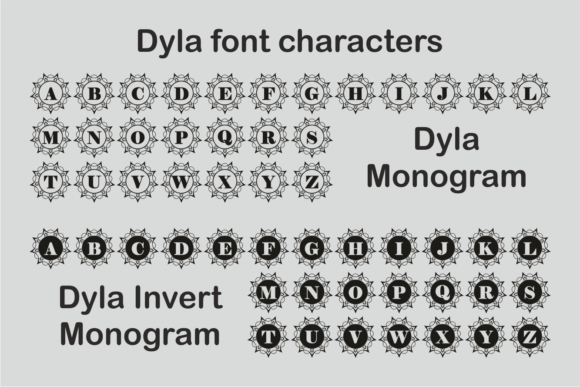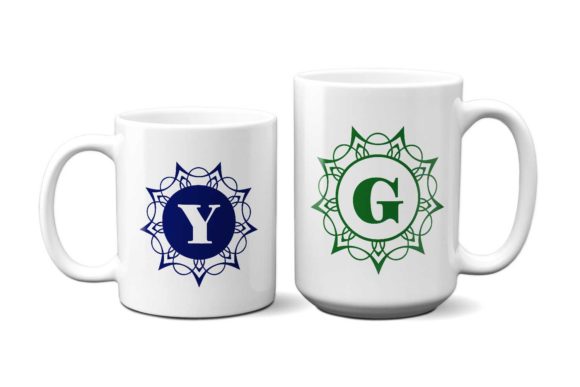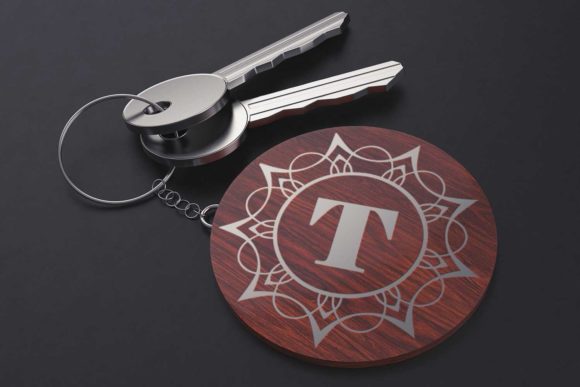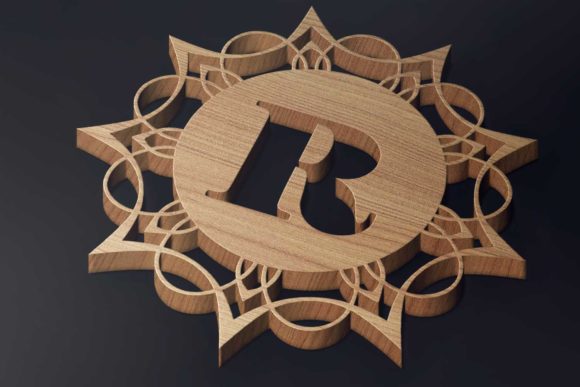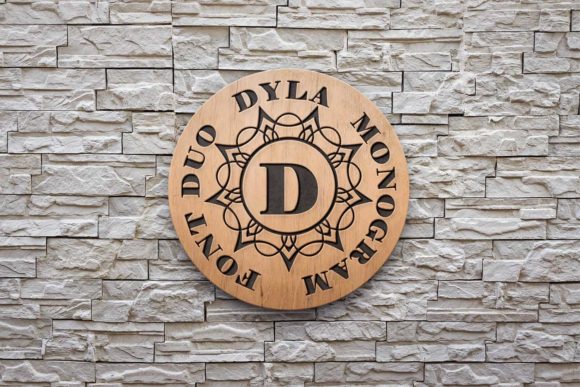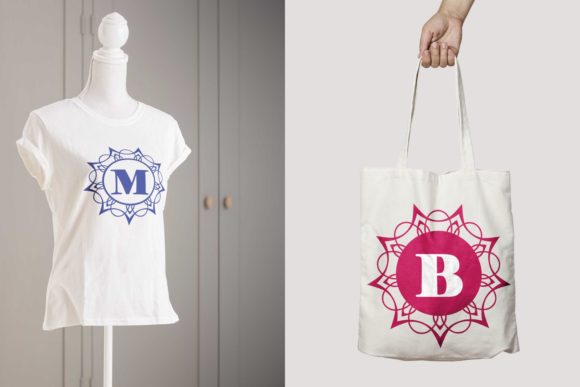
Dyla Font: Elevate Your Designs with a Unique and Fun Display Font
Dyla Monogram is a great and fun display font that features a unique style that will take your designs to the next level! If you’re a designer or crafter looking for a font that can add a touch of personality to your work, Dyla Font is definitely worth checking out. In this article, we’ll take a closer look at Dyla Font, its features, and how you can use it to enhance your designs.
What is Dyla Font?
Dyla Font is a display font that is designed to make a statement. It’s perfect for creating eye-catching headings, titles, and monograms that can add a touch of elegance and sophistication to your designs. The font features a unique style that is both modern and playful, making it ideal for a wide range of design projects.
Key Features of Dyla Font
So, what makes Dyla Font so special? Here are some of its key features:
- Unique Style: Dyla Font has a unique style that sets it apart from other fonts. Its modern and playful design makes it perfect for creating eye-catching headings and titles.
- Display Font: Dyla Font is a display font, which means it’s designed to be used at larger sizes. It’s perfect for creating headings, titles, and monograms that need to make a statement.
- Fun and Playful: Dyla Font is a fun and playful font that can add a touch of personality to your designs. It’s perfect for creating designs that need to be youthful and energetic.
- Elegant and Sophisticated: Despite its playful nature, Dyla Font is also elegant and sophisticated. It’s perfect for creating designs that need to be high-end and luxurious.
How to Use Dyla Font in Your Designs
So, how can you use Dyla Font in your designs? Here are some ideas:
- Headings and Titles: Dyla Font is perfect for creating eye-catching headings and titles. Use it to create headings for blog posts, articles, and other types of content.
- Monograms: Dyla Font is also great for creating monograms. Use it to create custom monograms for logos, branding, and other design projects.
- Signage: Dyla Font is perfect for creating signage. Use it to create eye-catching signs for businesses, events, and other types of projects.
- Digital Designs: Dyla Font can also be used in digital designs. Use it to create eye-catching graphics for social media, websites, and other digital platforms.
Tips for Getting the Most Out of Dyla Font
Here are some tips for getting the most out of Dyla Font:
- Use it at Larger Sizes: Dyla Font is a display font, which means it’s designed to be used at larger sizes. Use it at sizes between 24px and 48px to get the most impact.
- Experiment with Colors: Dyla Font looks great in a variety of colors. Experiment with different colors to find the one that works best for your design.
- Pair it with Other Fonts: Dyla Font can be paired with other fonts to create a unique and interesting design. Experiment with different font combinations to find the one that works best for your project.
Dyla Font is a great and fun display font that features a unique style that will take your designs to the next level. With its modern and playful design, Dyla Font is perfect for creating eye-catching headings, titles, and monograms. Whether you’re a designer or crafter, Dyla Font is definitely worth checking out. So why not give it a try and see how it can enhance your designs?